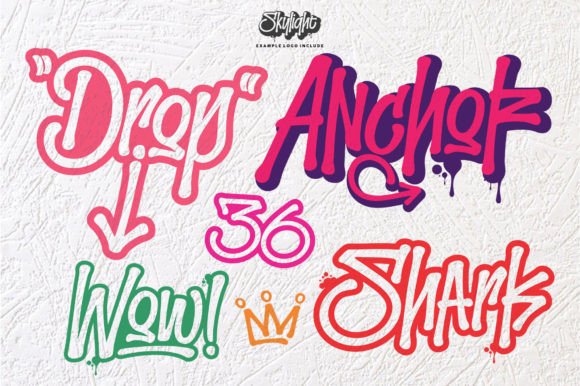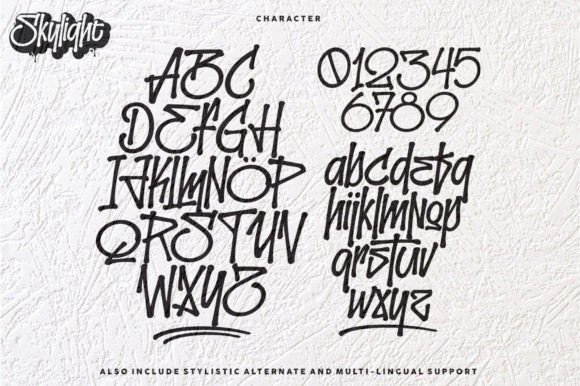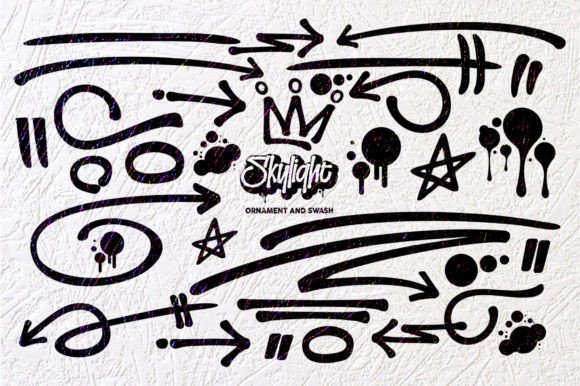
Skylight Font
Skylight is a cool and edgy graffiti display font that is perfect for creating bold and expressive designs. Its stylish letters feature jagged edges and intricate details, giving it a rebellious and streetwise personality. This font is perfect for posters, logos, and other projects that require a cool and urban font. The font’s graffiti-inspired style is sure to make a statement.